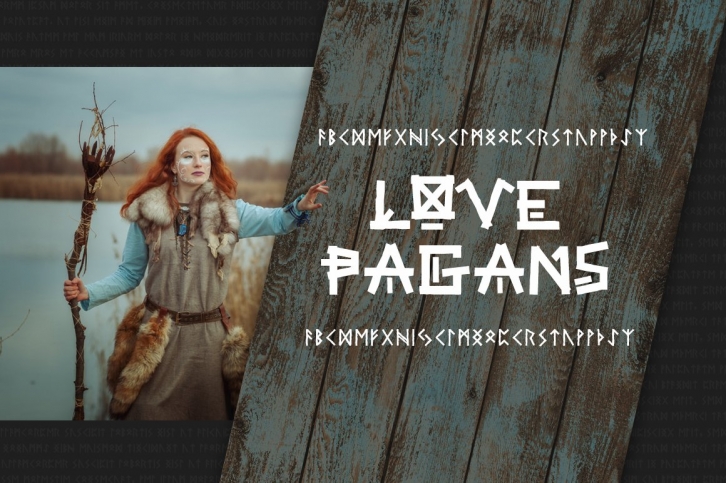
Love Pagans
A Perfectly Imperfect Typeface! Inspired by pagan history and nordic runes it has a rustic, unpredictable feel. It has been designed in a way to work well with modern publications and wouldn't look out of place advertising:
- Camping/self catering destinations
- Festivals/
- Historic tourist locations
3 Styles
Regular | Ritual | Or type in lowercase to use real pagan rune symbols